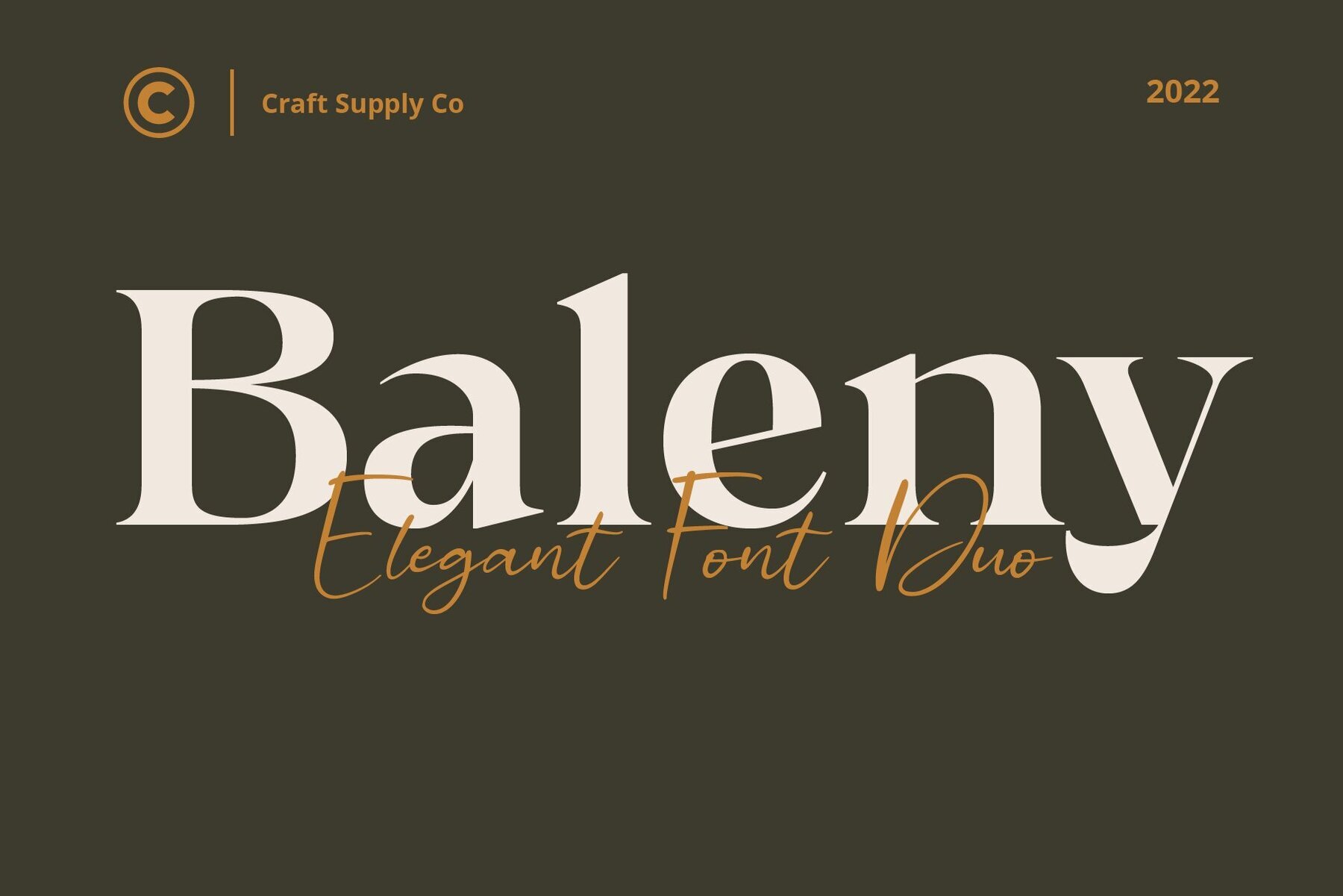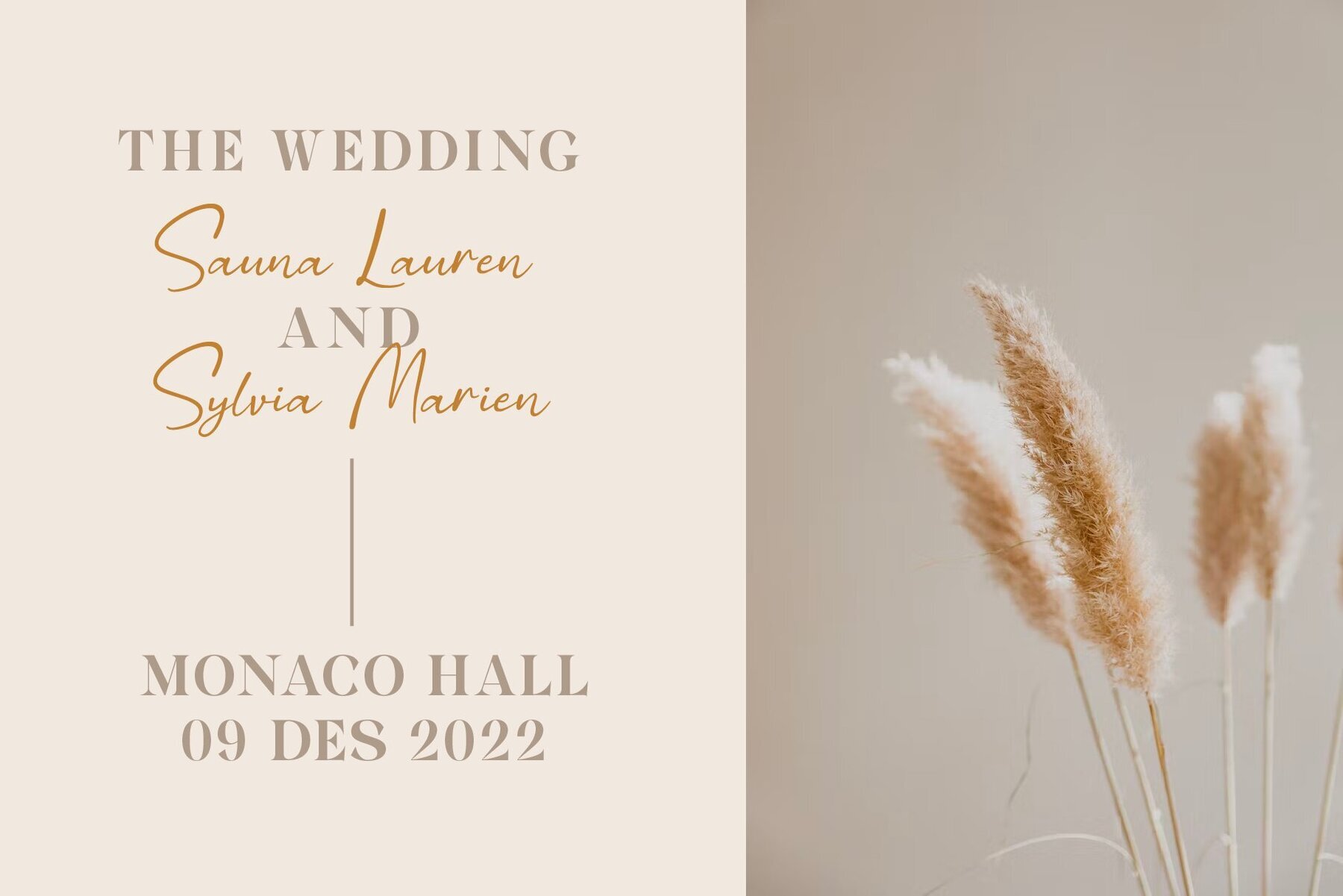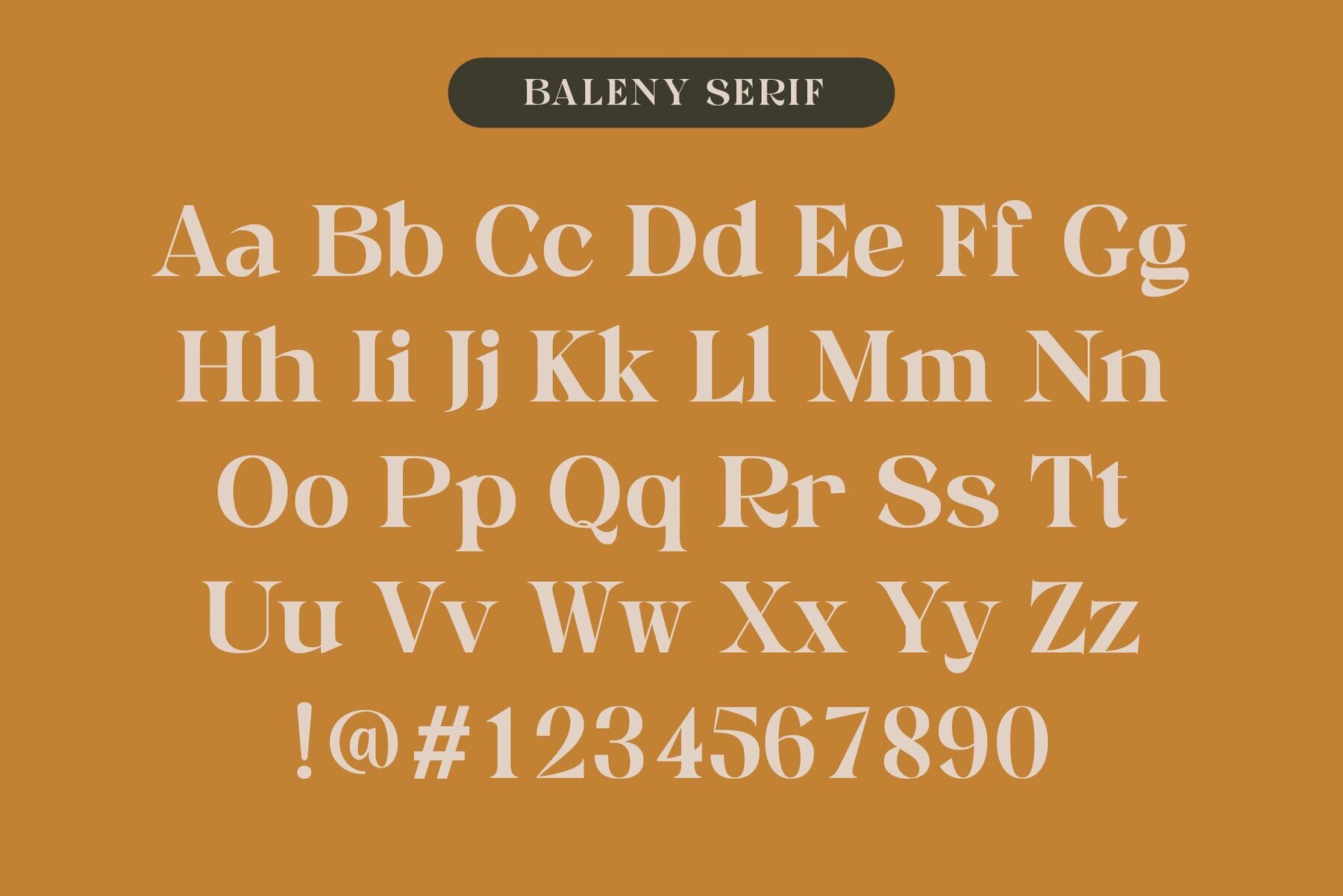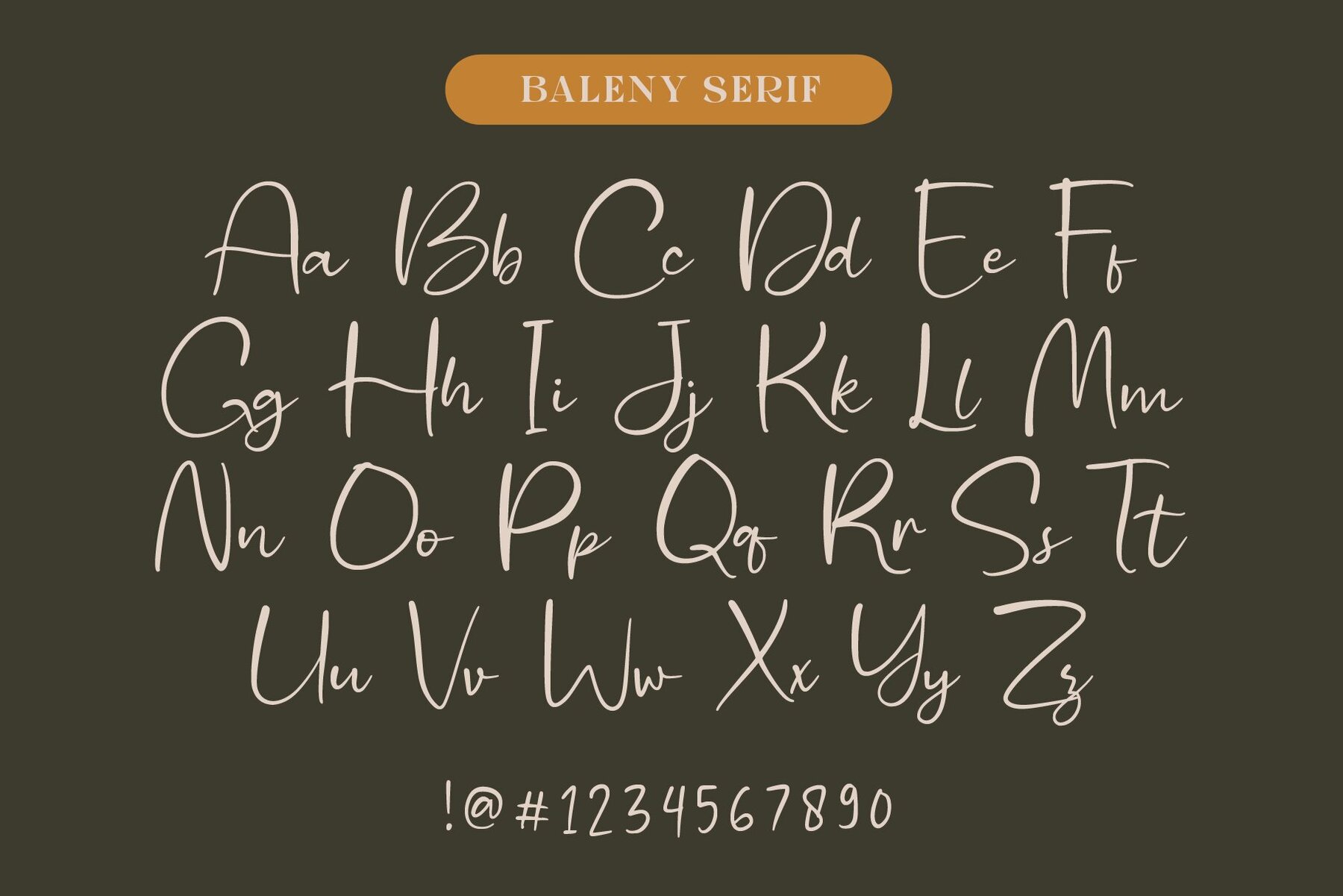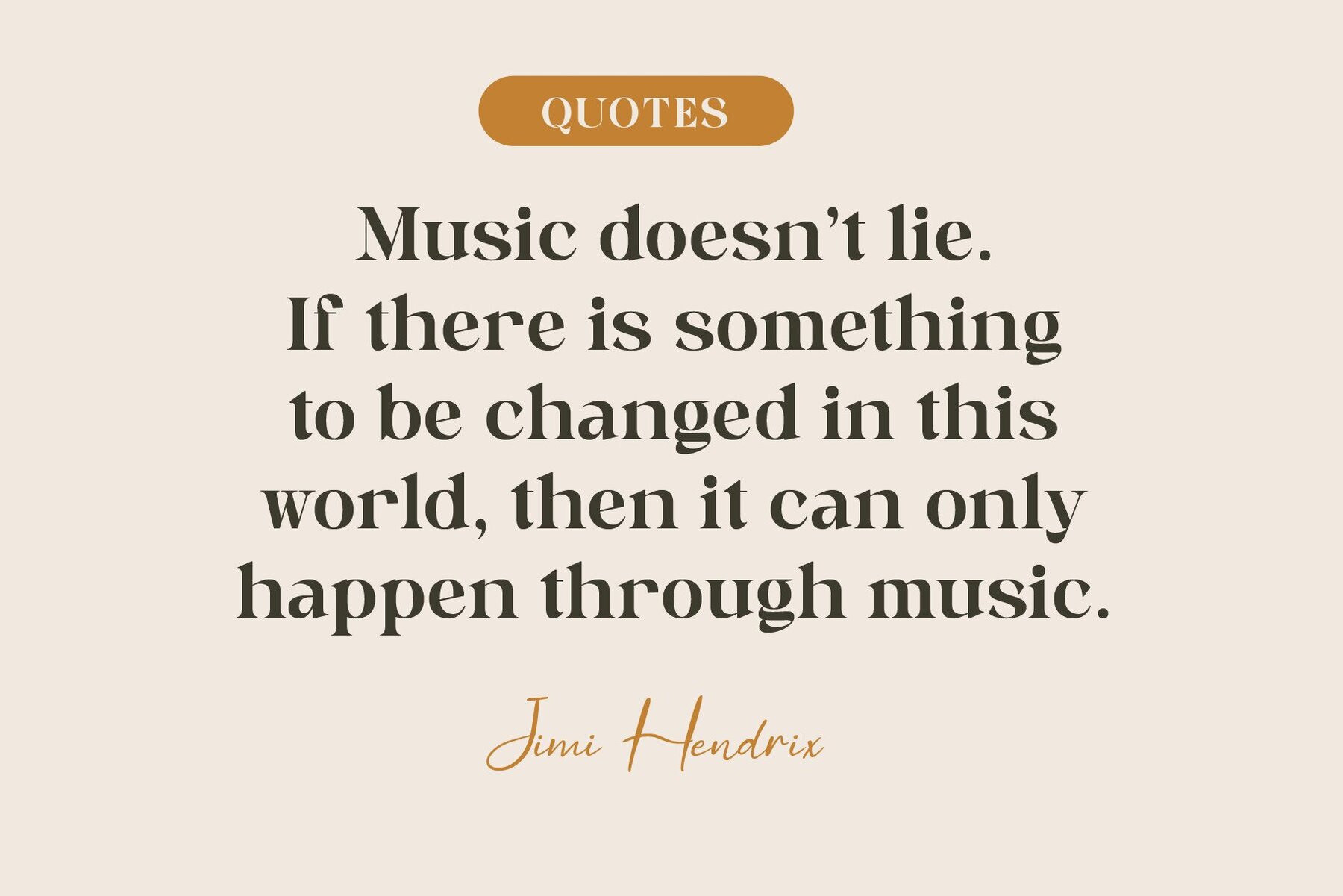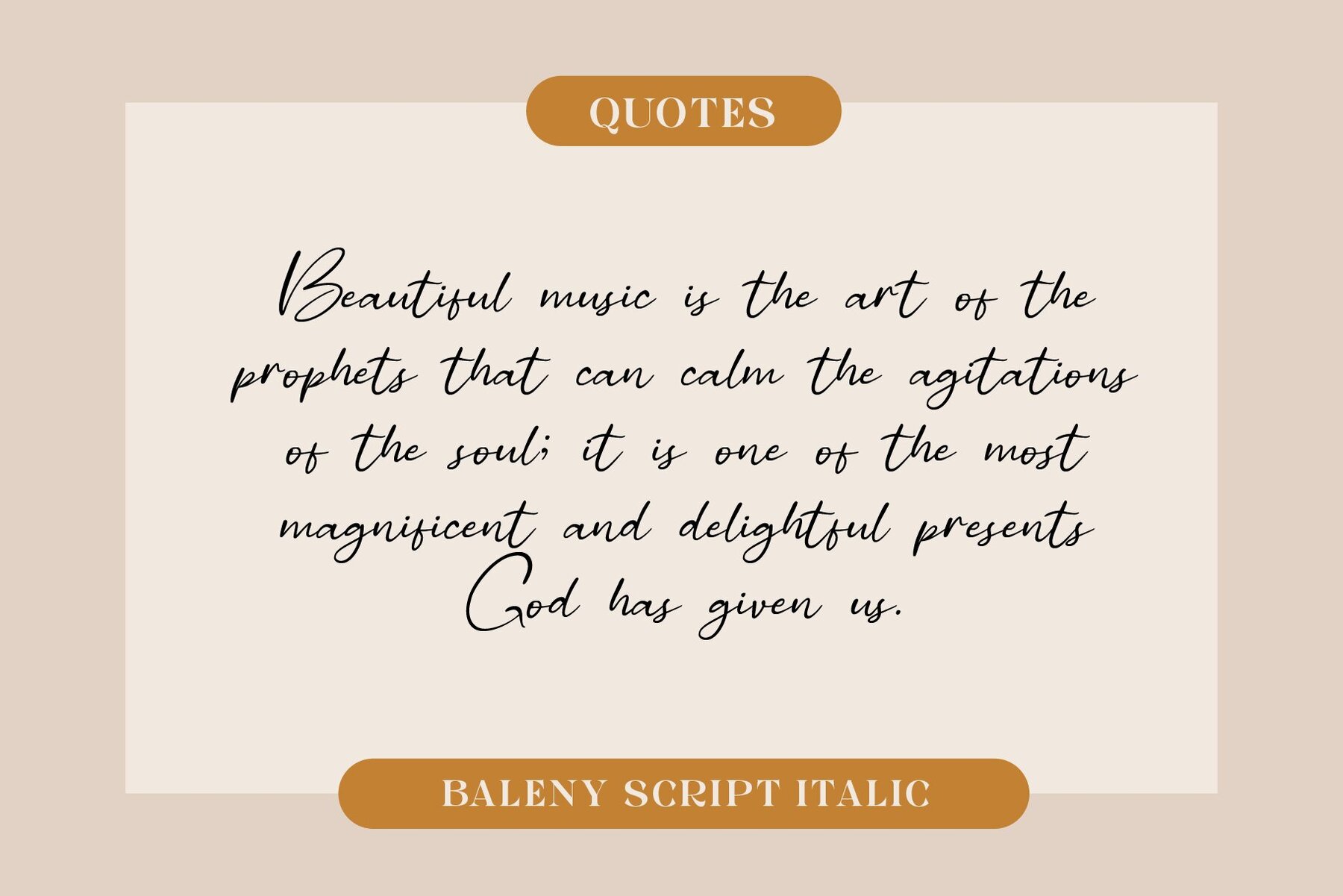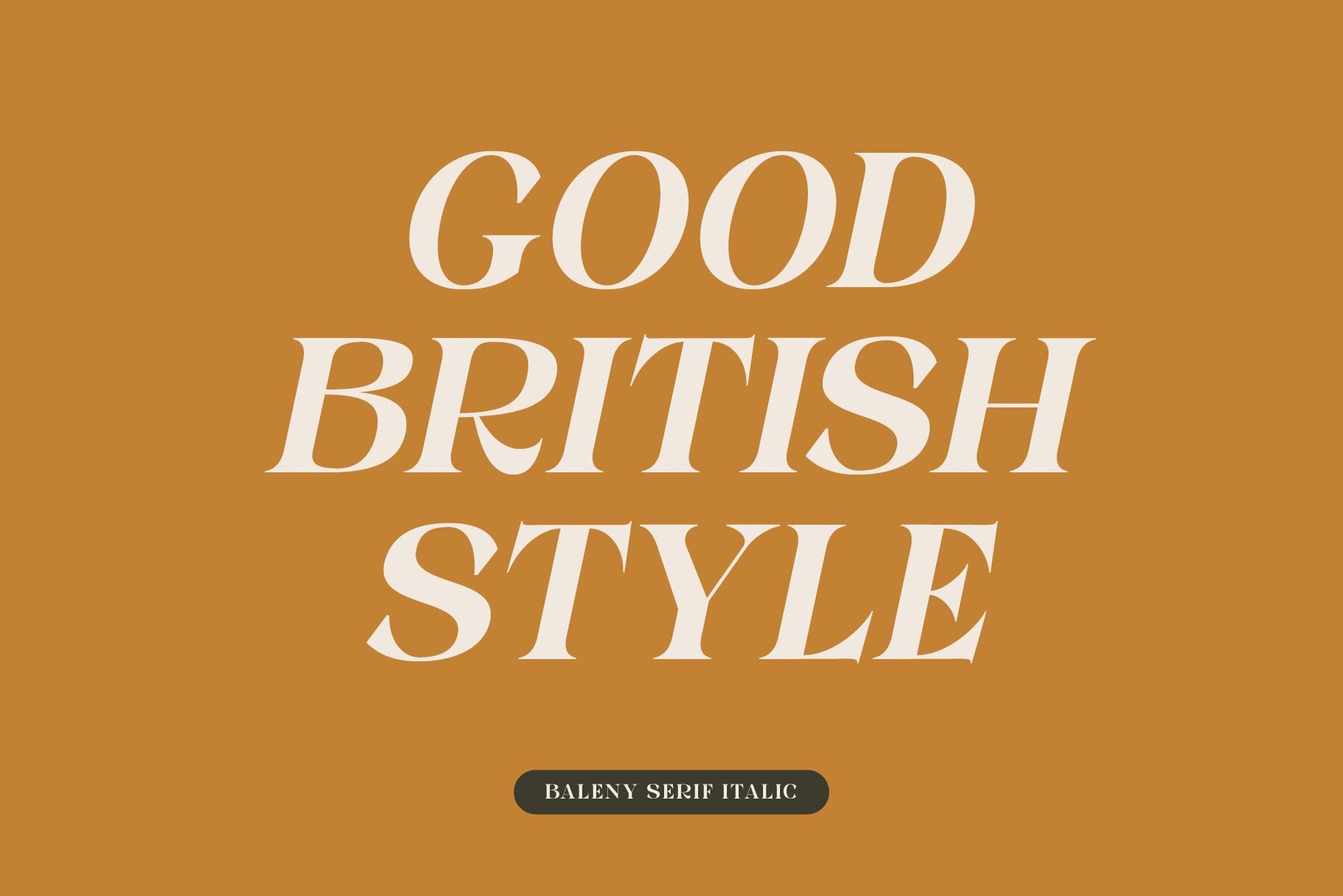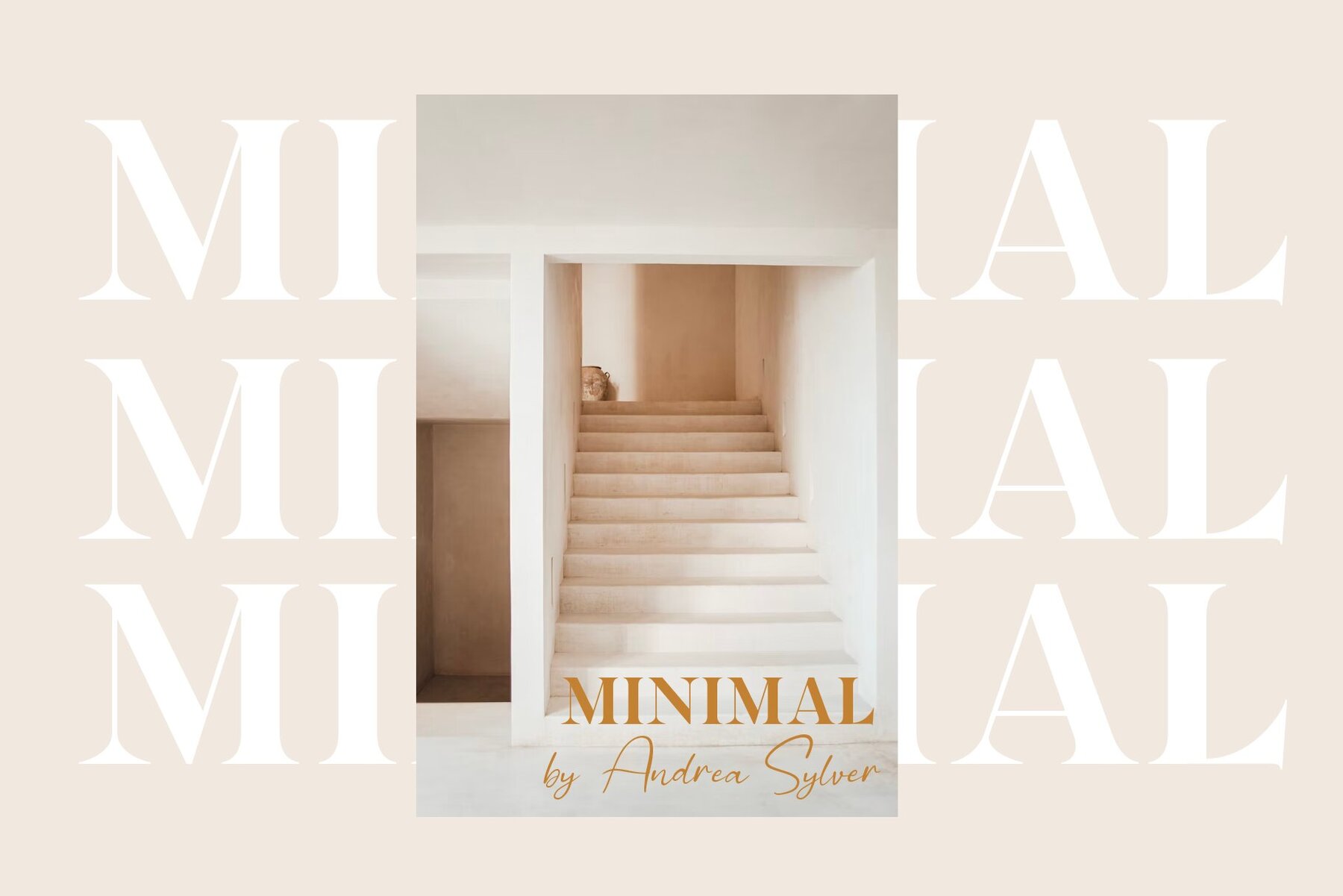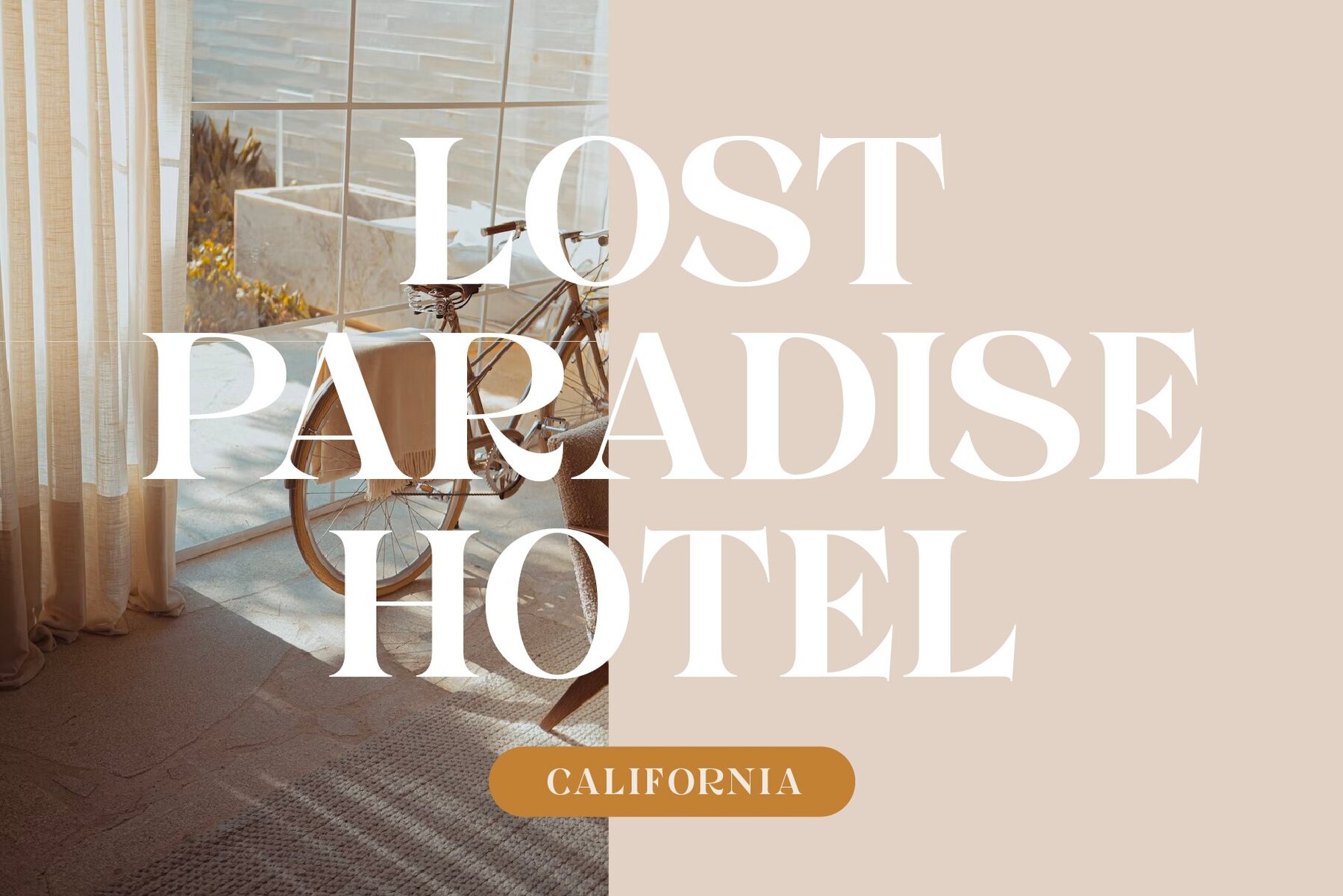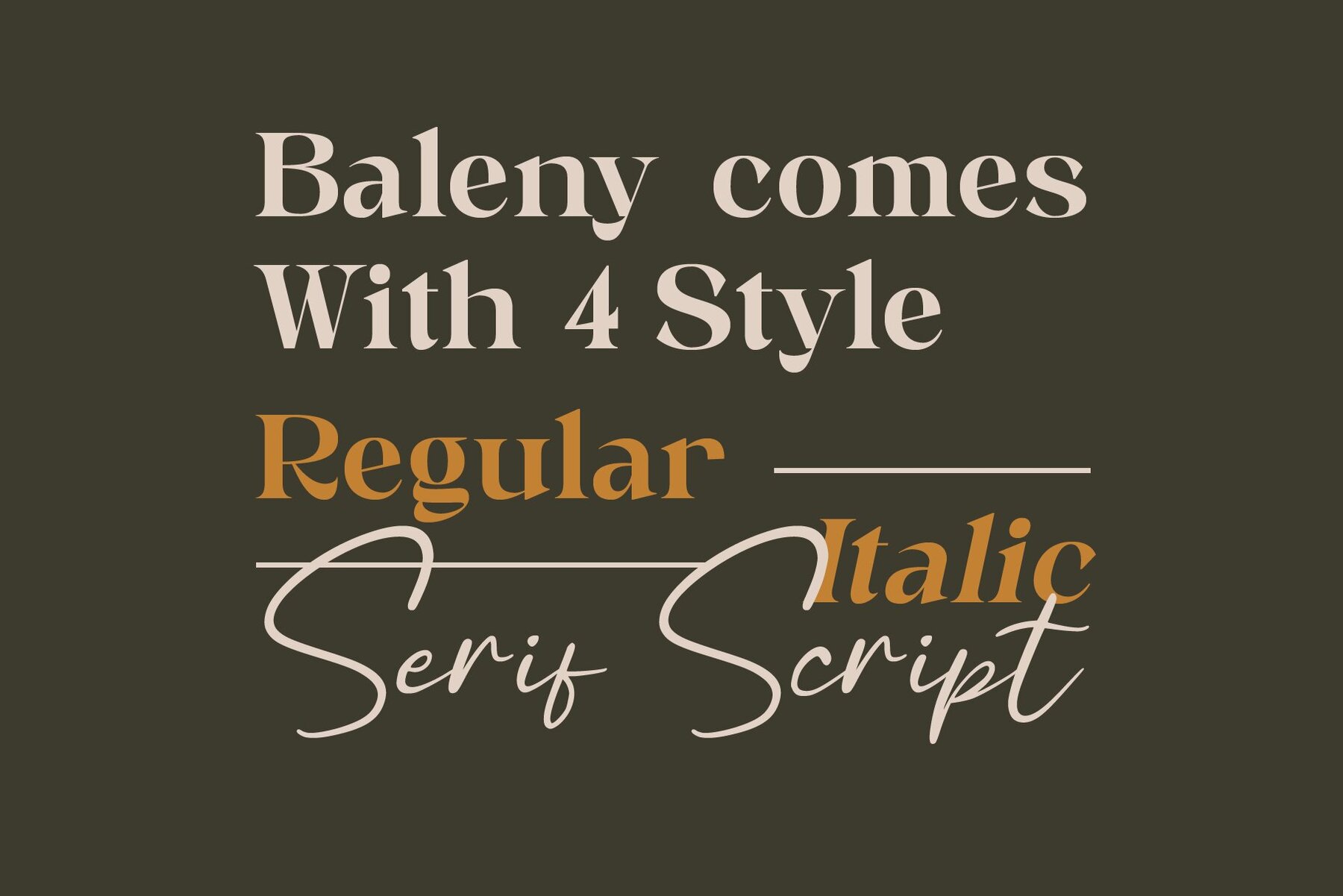
Baleny Elegant Font Duo
The Baleny Elegant Font Duo presents a sophisticated blend of classic serif and delicate handwritten script fonts, capturing the genuine essence of real handwriting. Ideal for fashion, e-commerce brands, and wedding boutiques, this font duo infuses a sense of upscale elegance into any project. Its versatile nature makes it perfect for logos, greeting cards, posters, and branding. In addition to these applications, Baleny Elegant Font Duo suits a multitude of creative endeavors. From blog headers to modern envelope lettering, and from art quotes to book designs, it enhances projects with a modern touch, including hand-drawn aesthetics and watercolor themes. The duo is a delightful choice for DIY crafts and book titles, ensuring your designs appear both pretty and contemporary.Baleny Elegant Font Duo: The Essence of Chic Typography